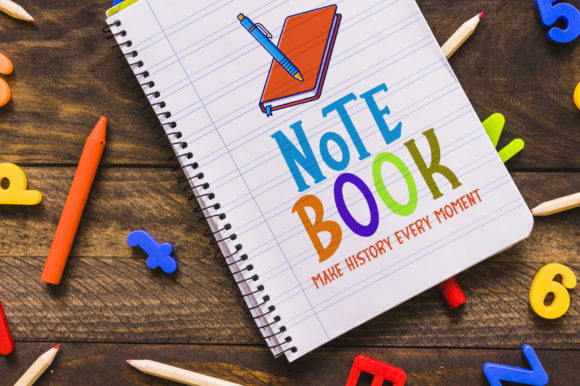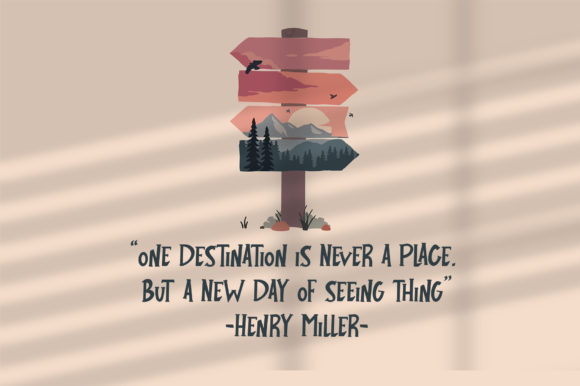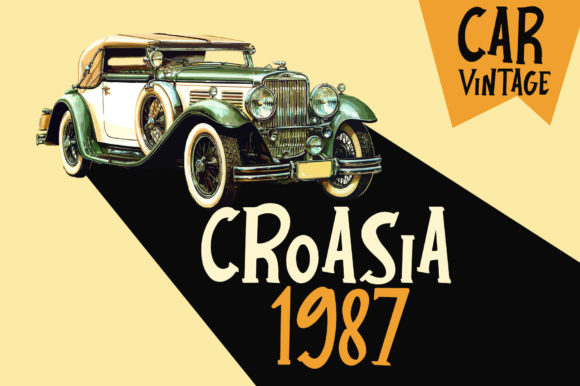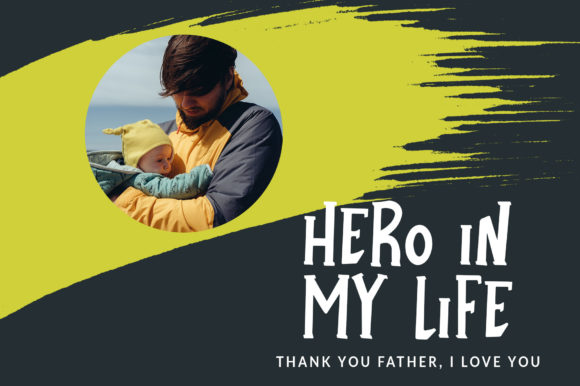
Siginjai Mountain Font
Siginjai Mountain Display Font
This is an assertive and authentic serif font. Whatever the topic, this font will be a wonderful asset to your font library, as it has the potential to enhance any creation.